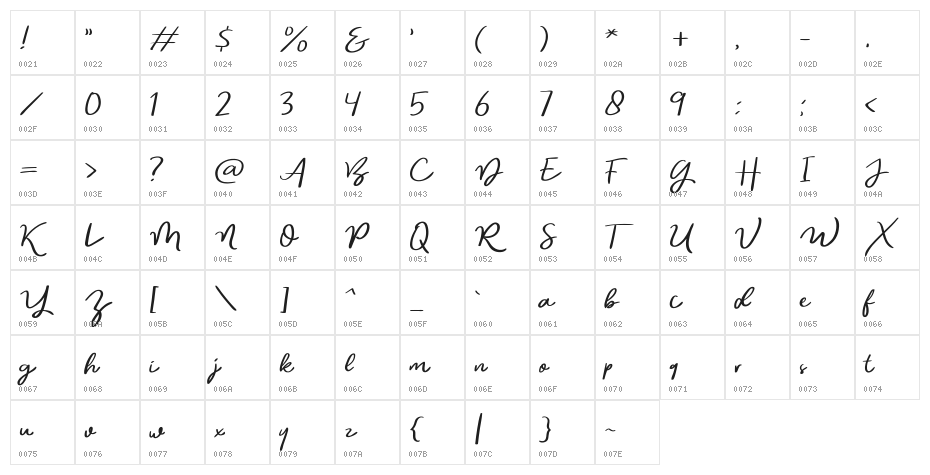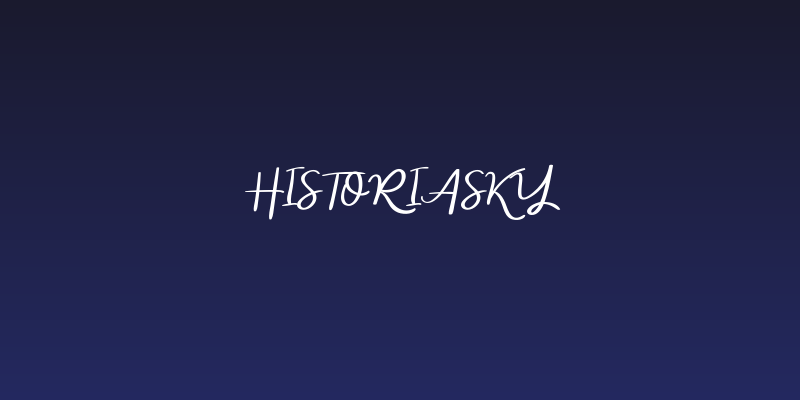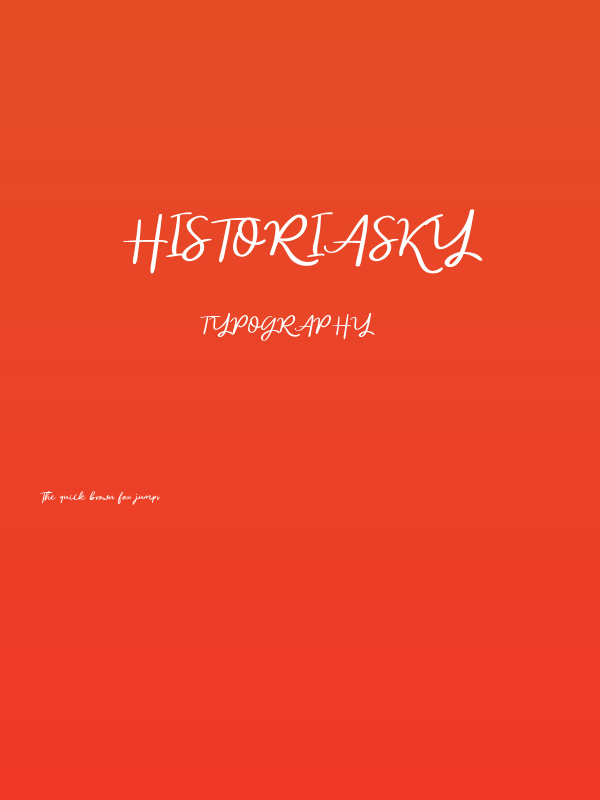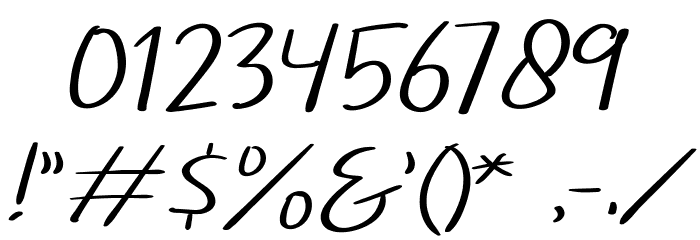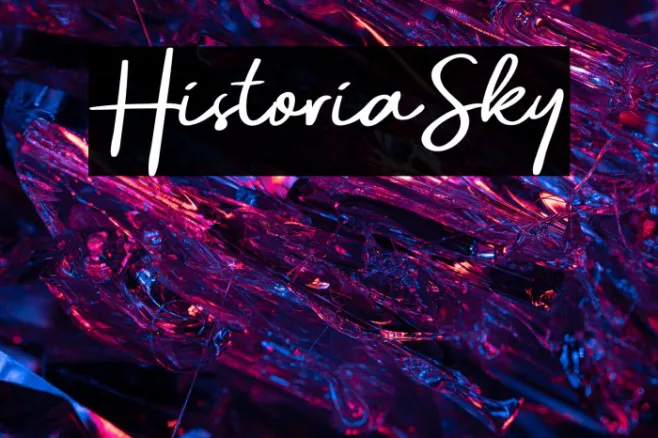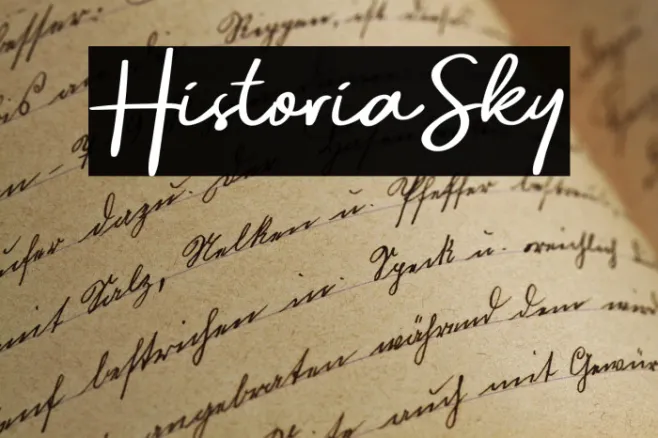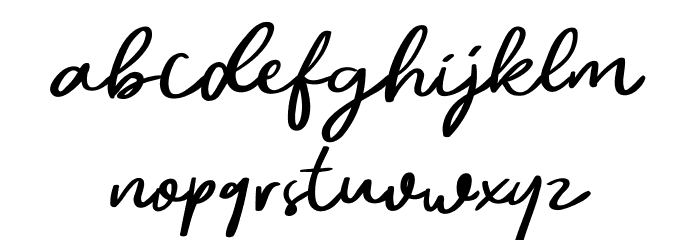
HistoriaSky Font
HistoriaSky Description
This font features a lively and dynamic script style, characterized by its fluid and connected letterforms. The uppercase letters exhibit a playful elegance with varying stroke widths, while the lowercase letters maintain a consistent flow, enhancing readability. The numerals are bold and slightly slanted, complementing the overall cursive aesthetic. Special characters are thoughtfully designed to match the font's energetic style, making it versatile for various creative applications. Its handwritten appearance adds a personal touch, ideal for projects that require a friendly and approachable feel.
| Use Case | Logos, Invitations, Social Media |
| Proposed Projects | Ideal for wedding invitations, greeting cards, branding projects, and social media graphics. |